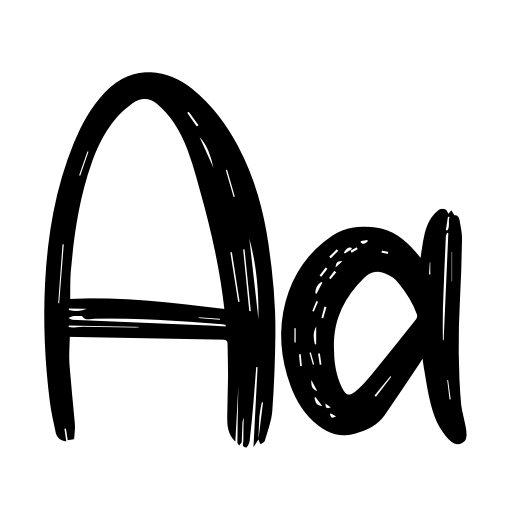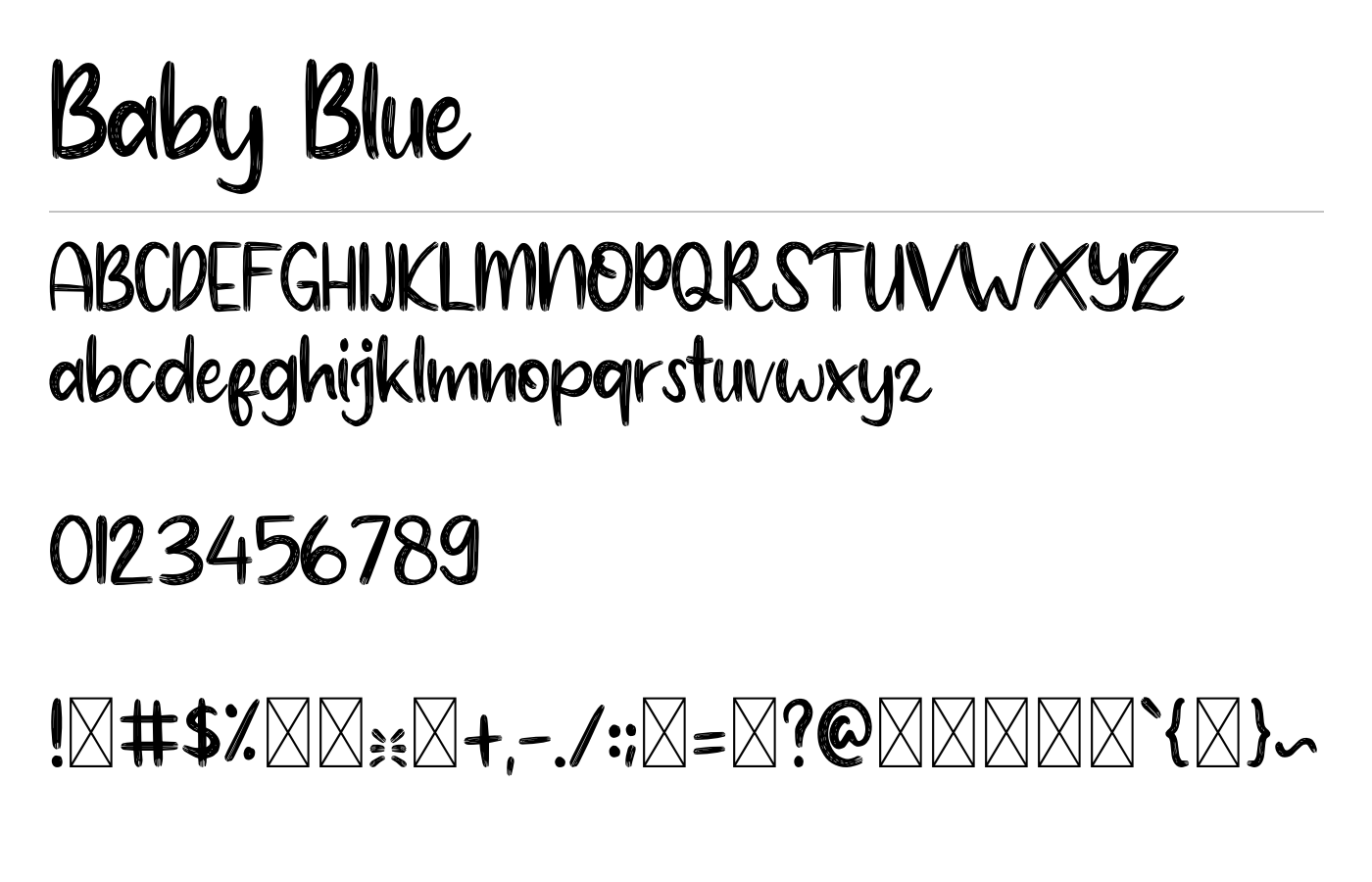
Baby Blue Font is a playful, casual handwritten sans serif with a slightly textured, brush-like stroke that gives a warm, friendly feel. Its tall, narrow letterforms with moderate contrast and informal shapes make it ideal for fun, youthful designs, perfect for children's branding, invitations, and creative projects that need a personal touch.
Baby Blue Font